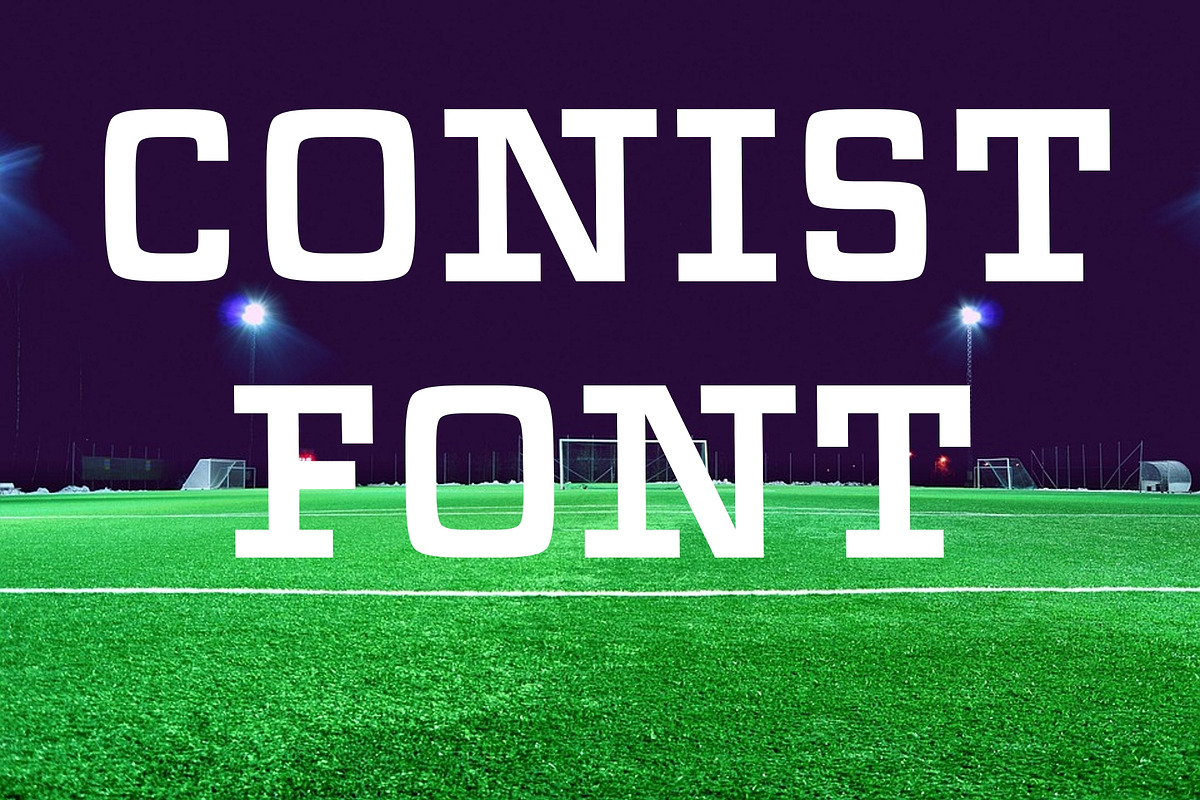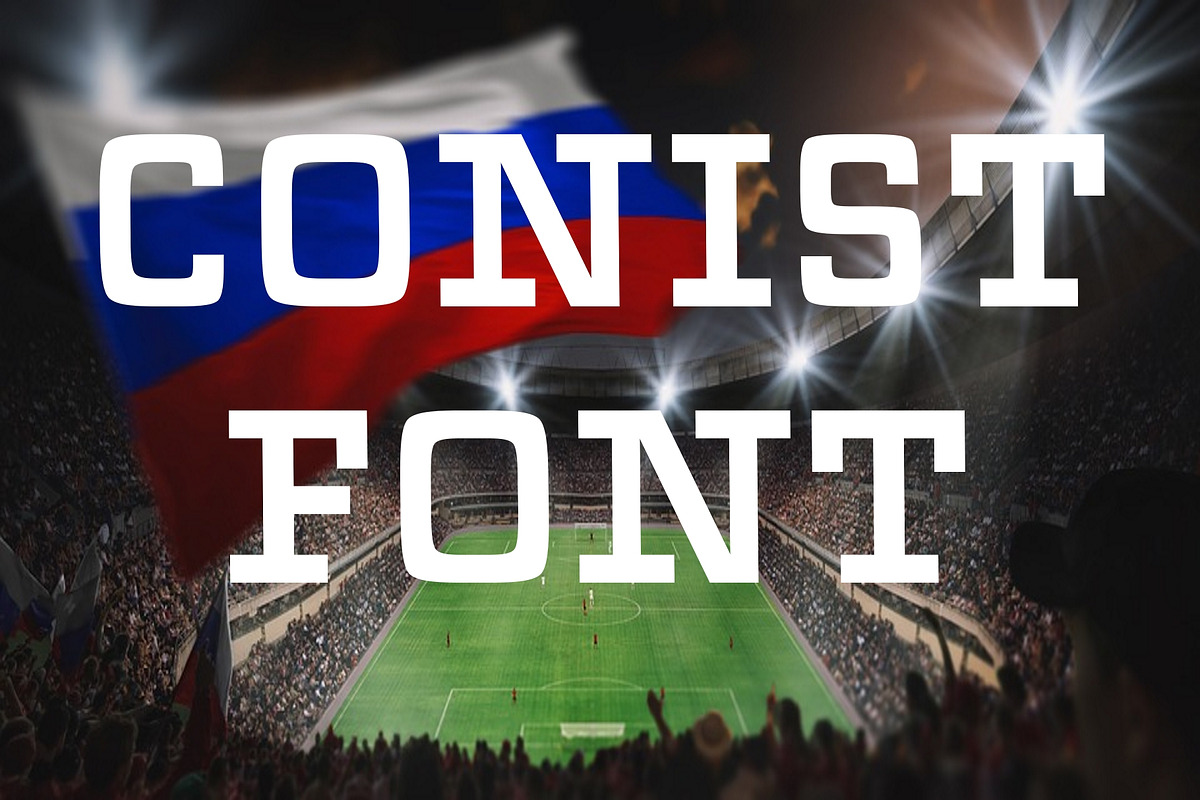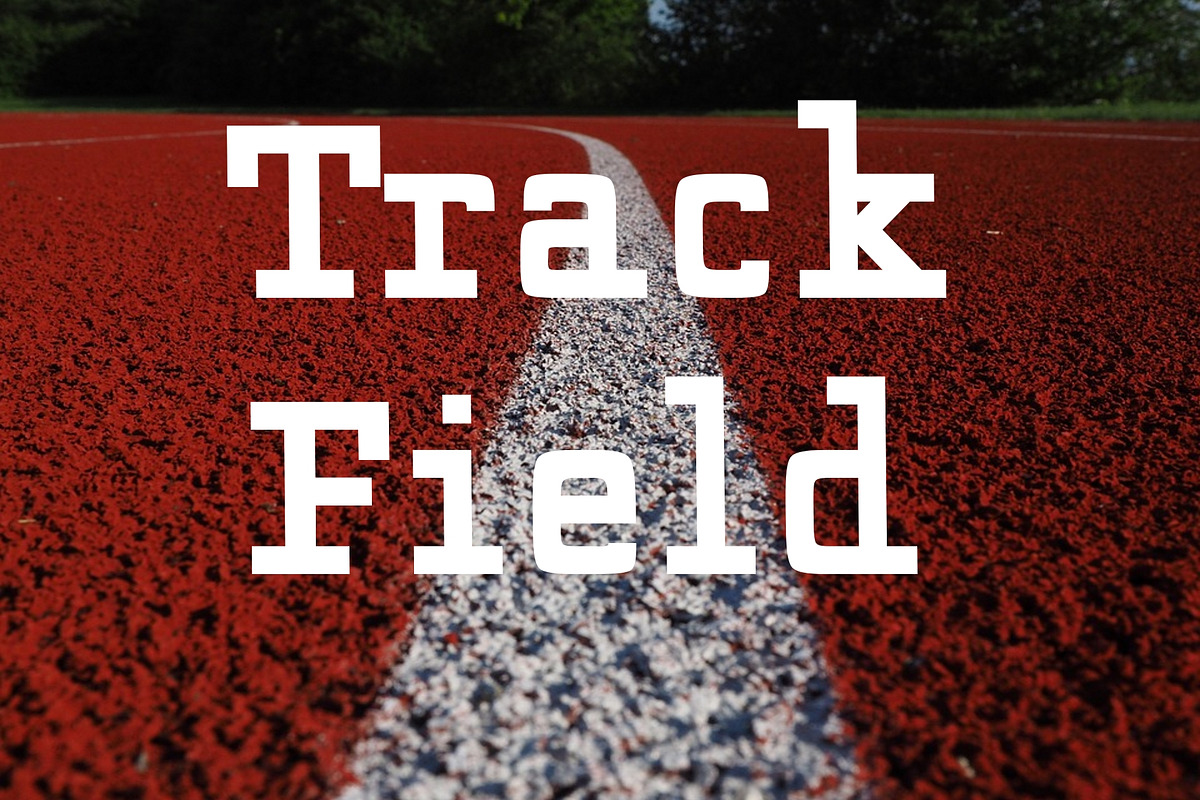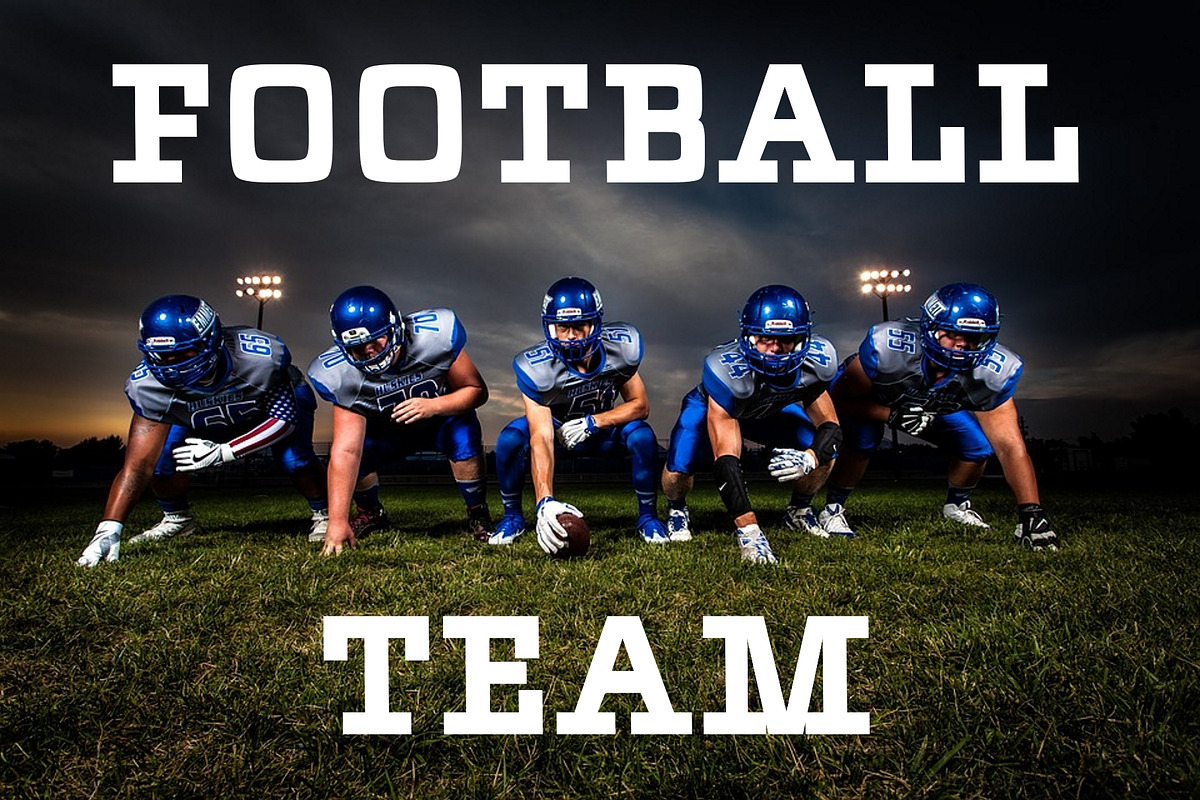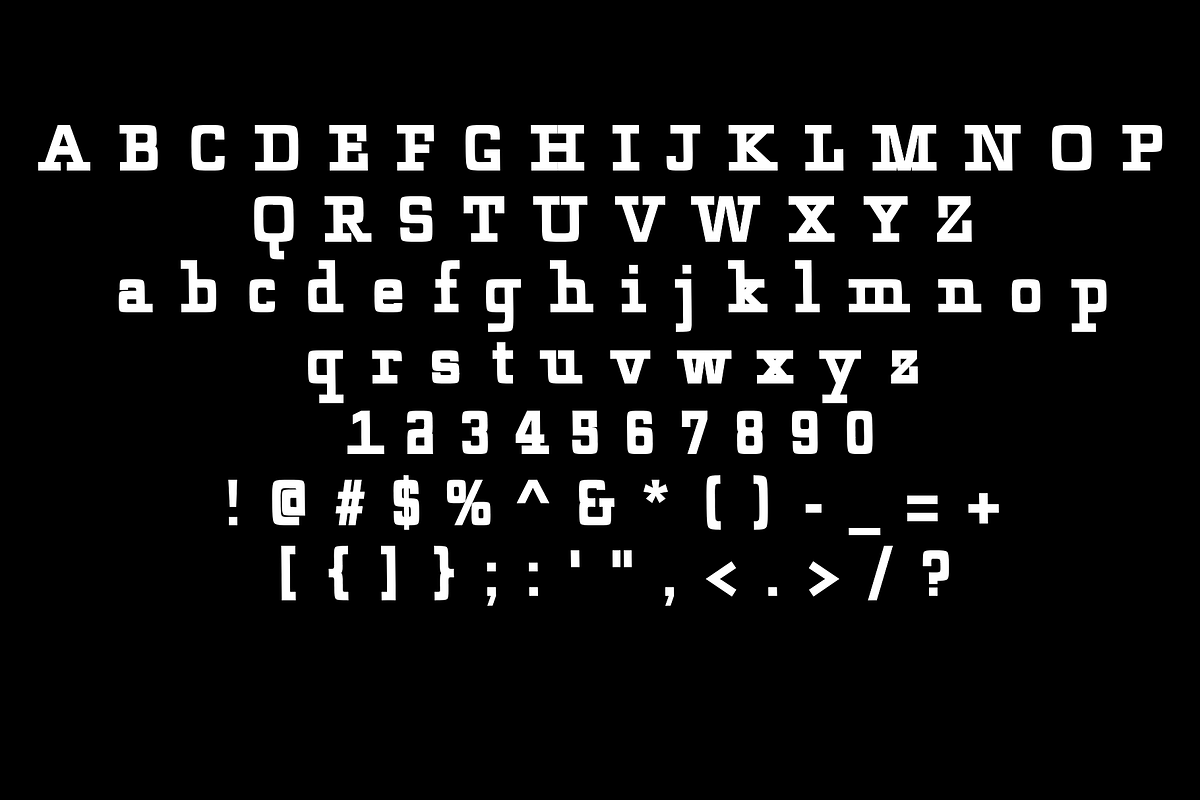
Conist Font
Conist Font by ultimatefontcreator is a font selected for branding, posters, packaging, typography.
Why Conist Font is worth a look
Conist Font by Ultimate Font Store fits naturally into Branding, posters, packaging, typography.